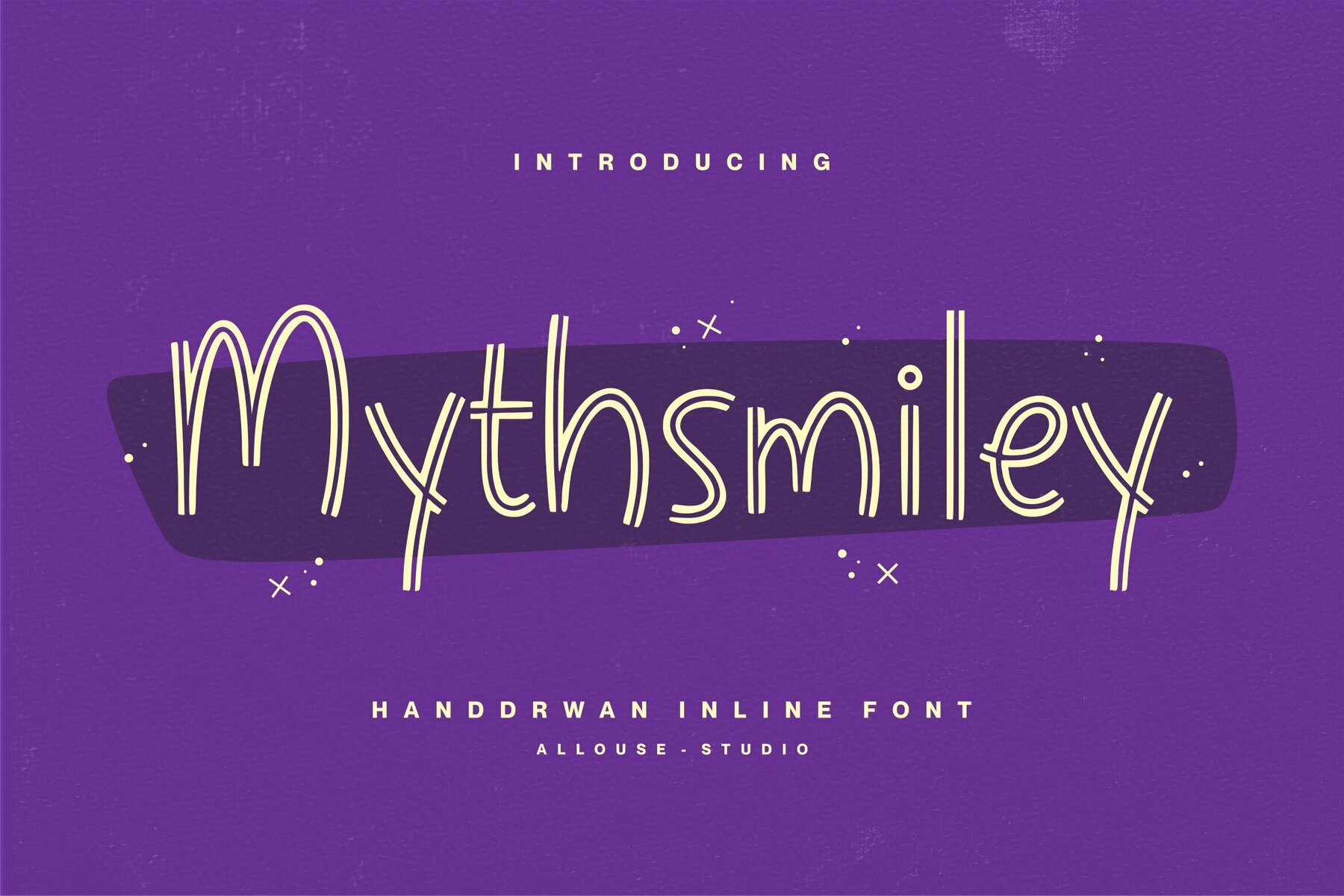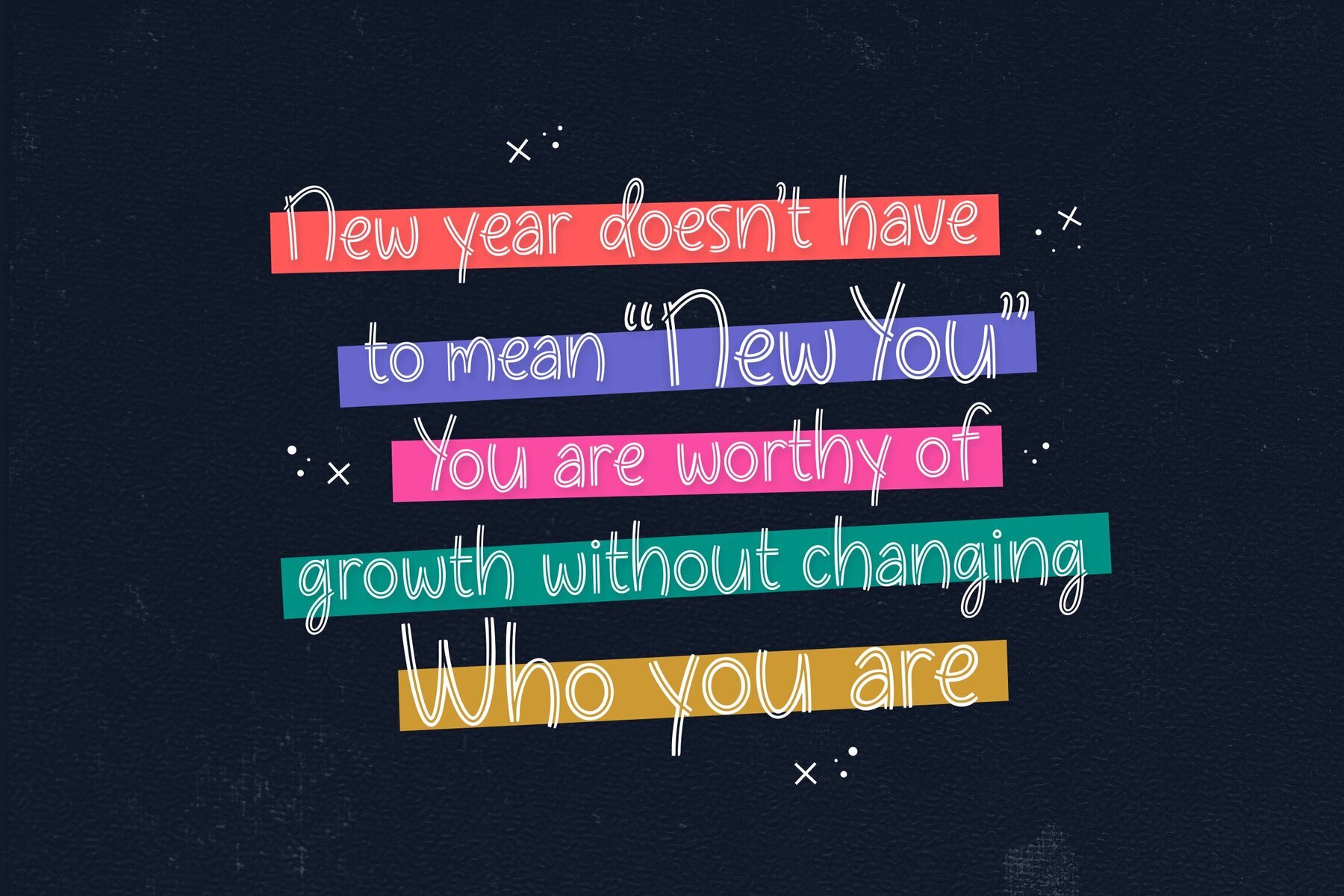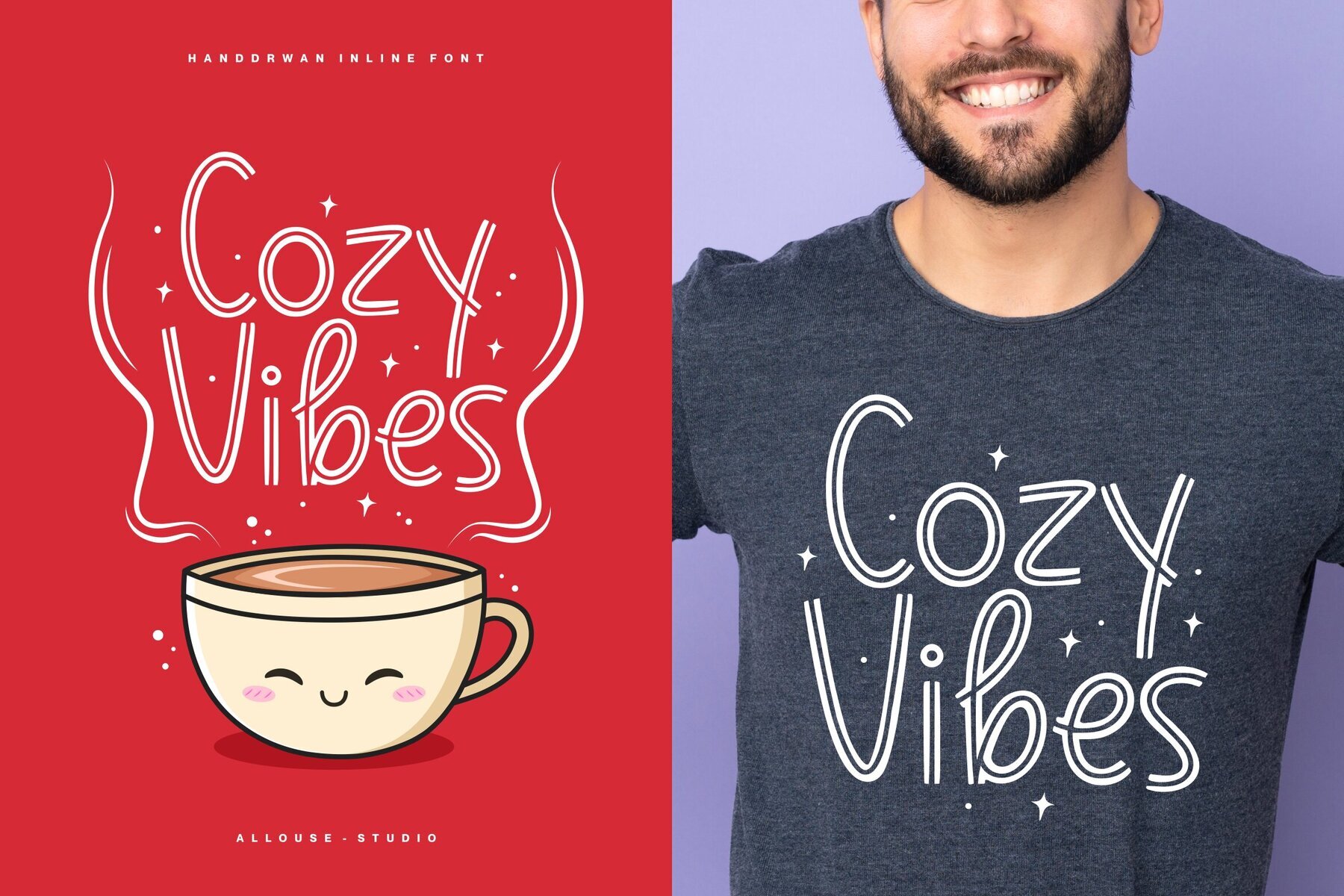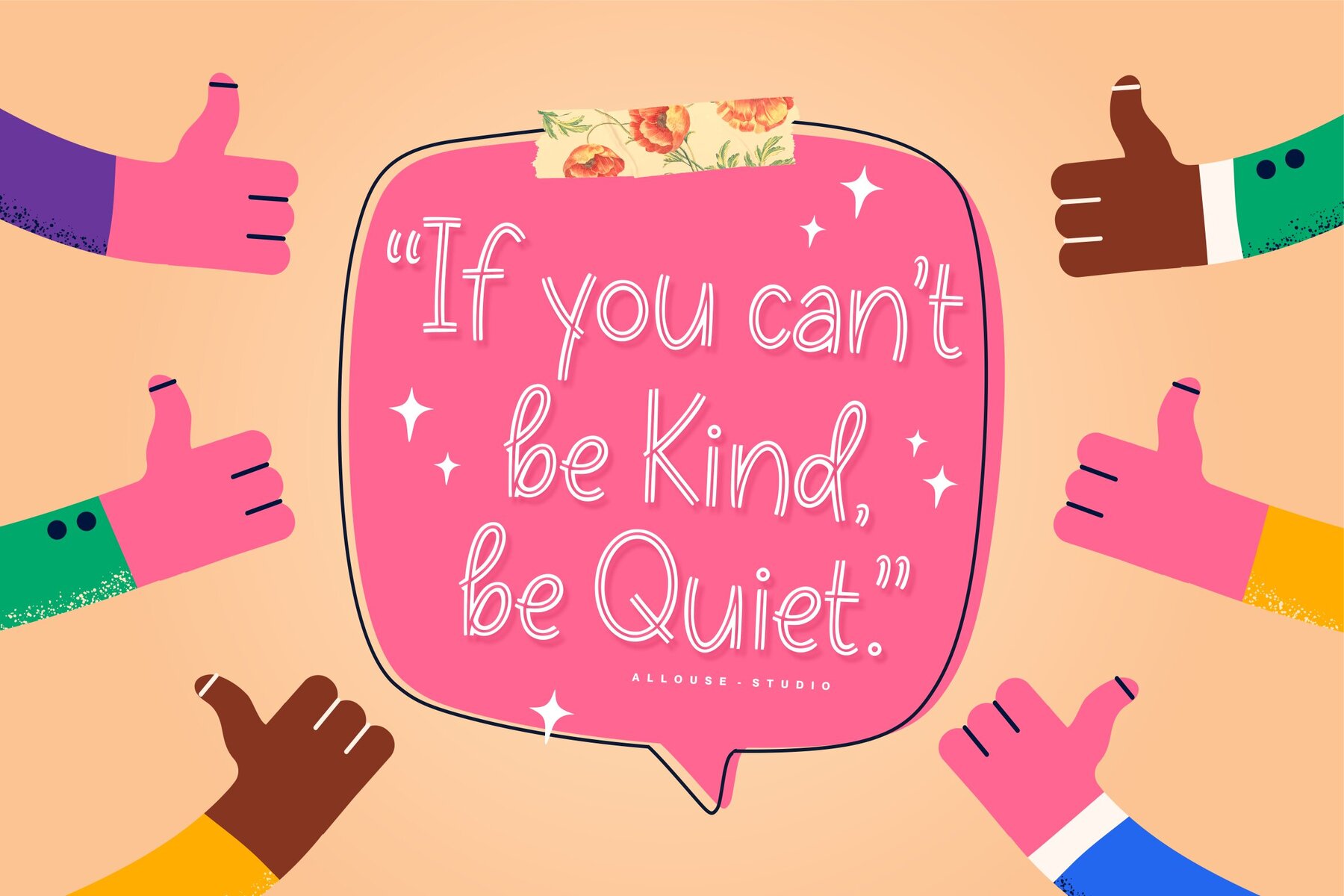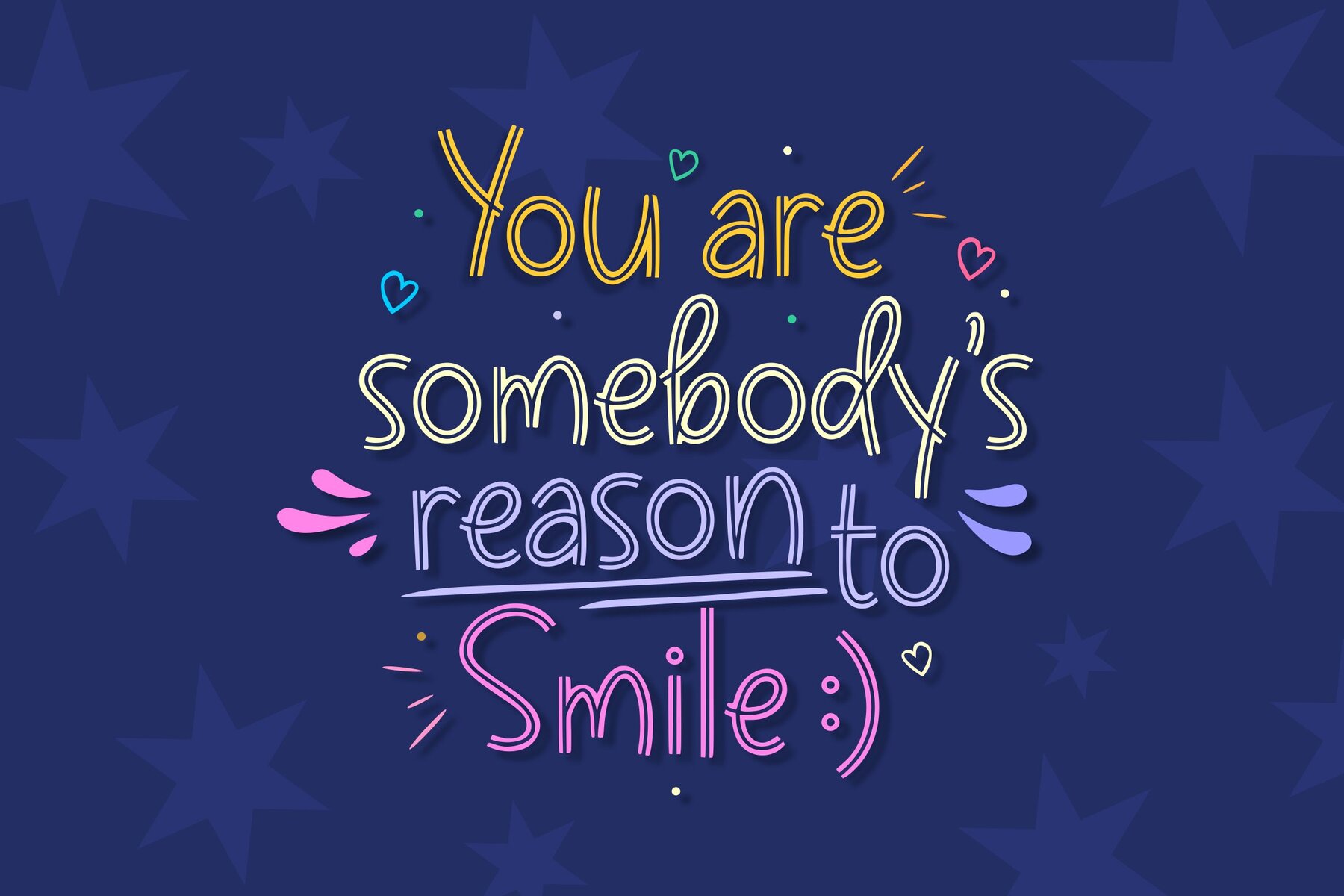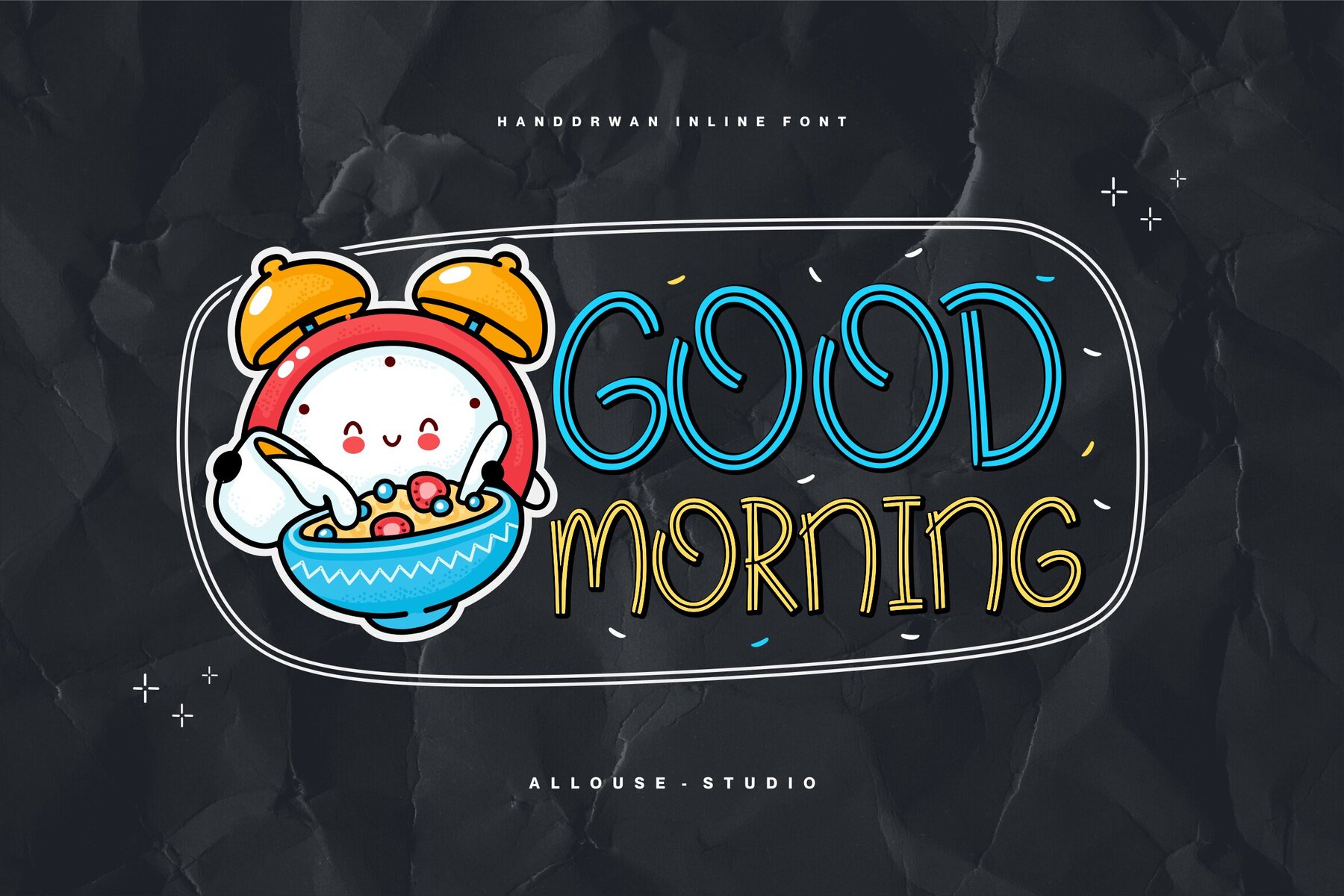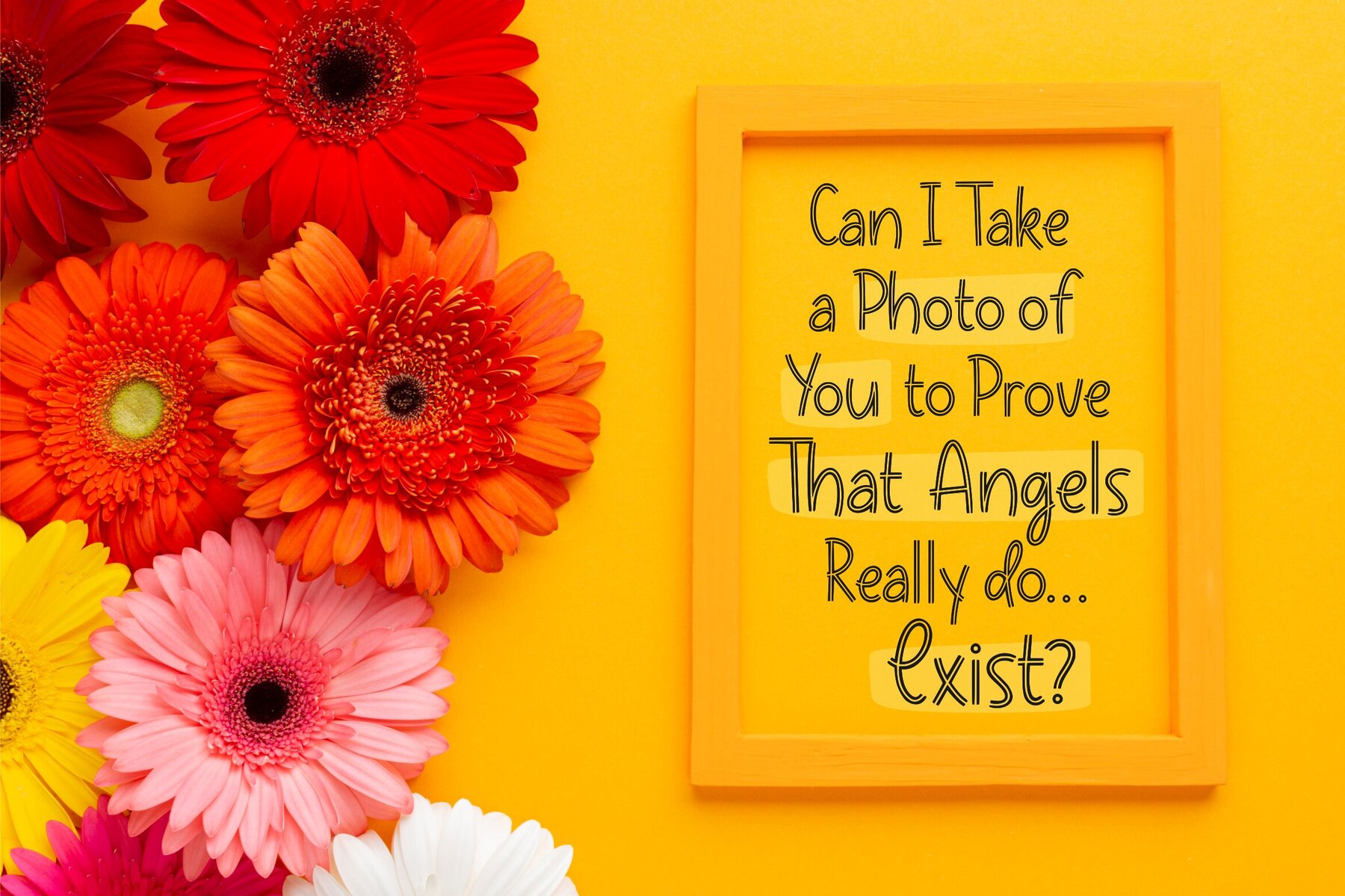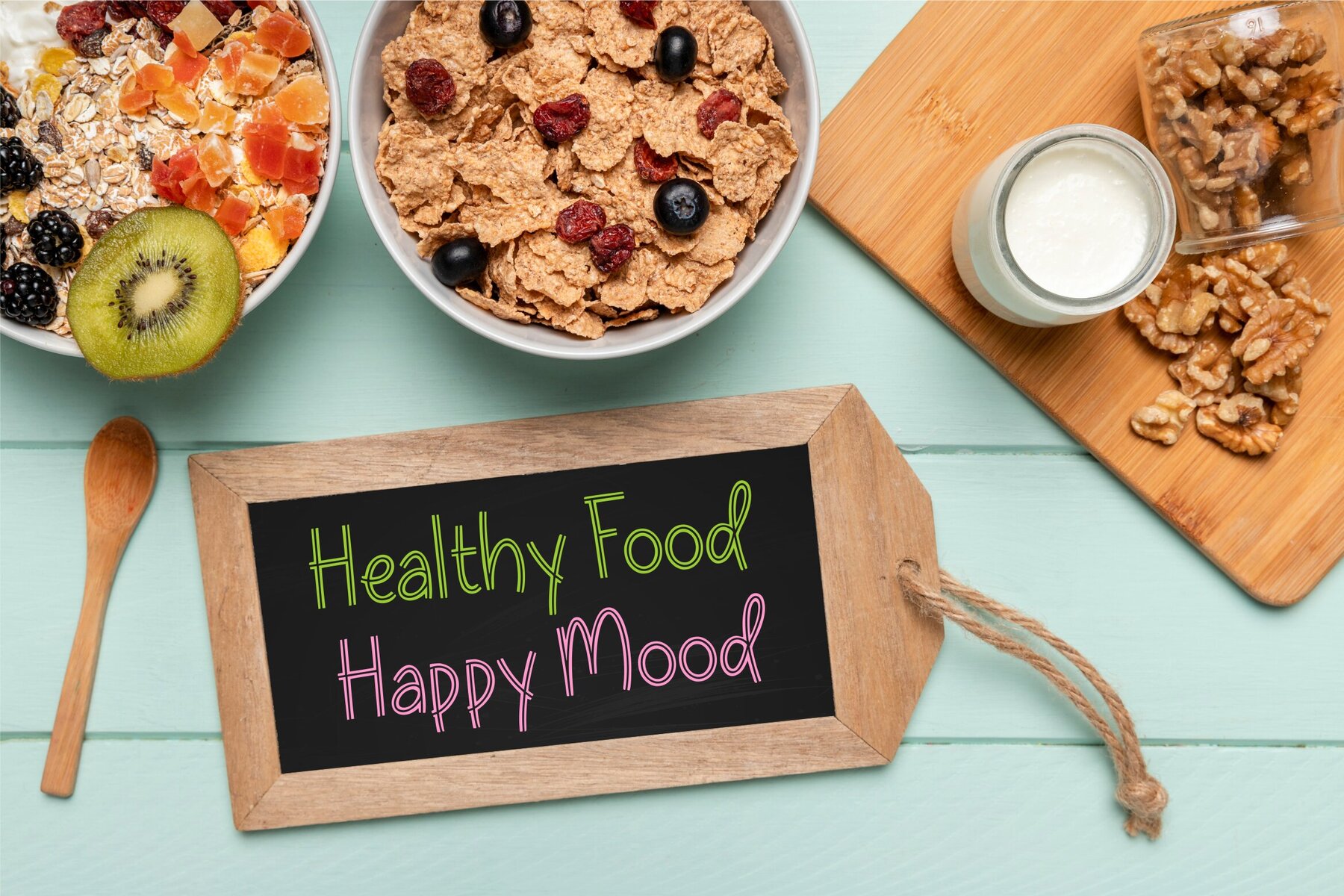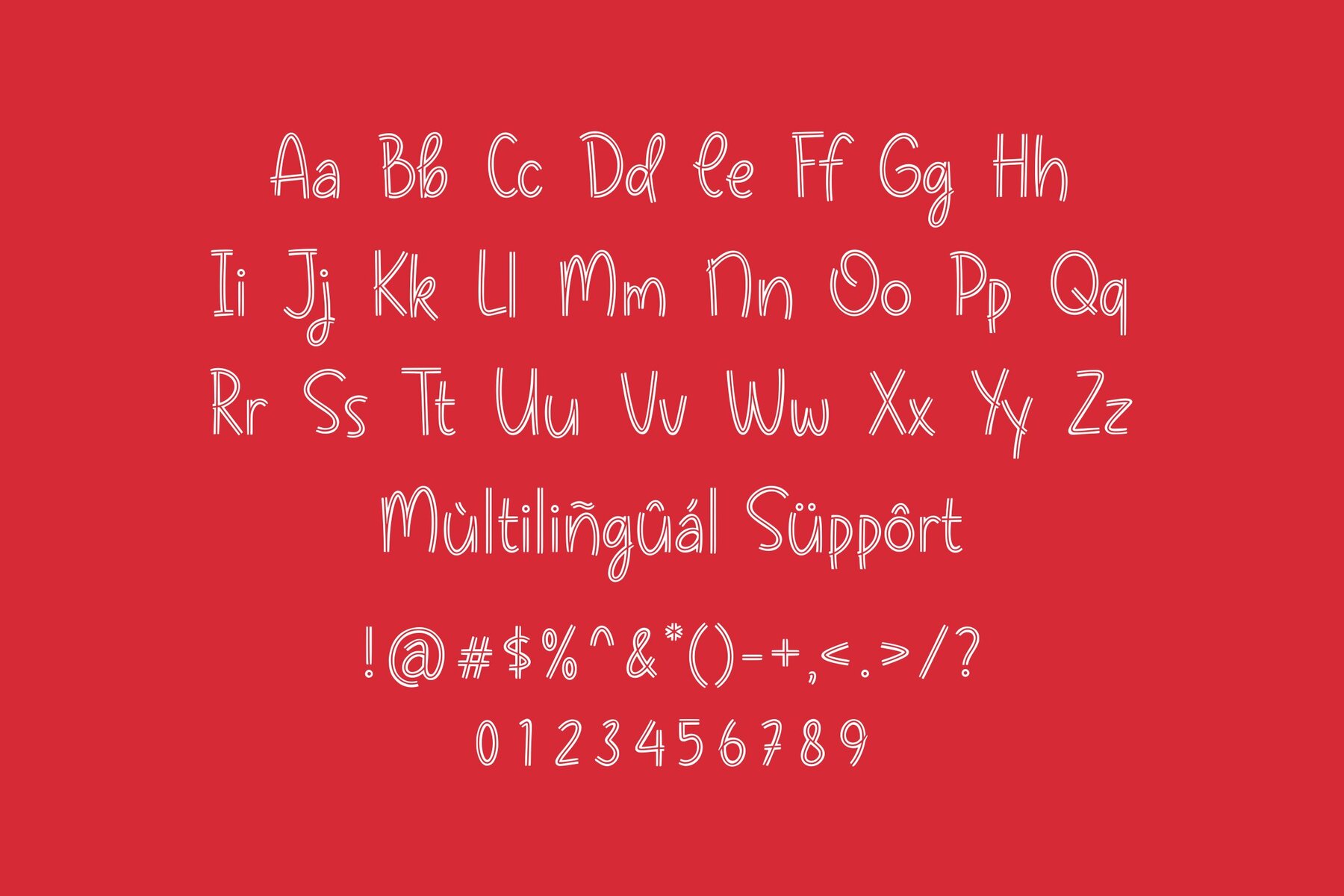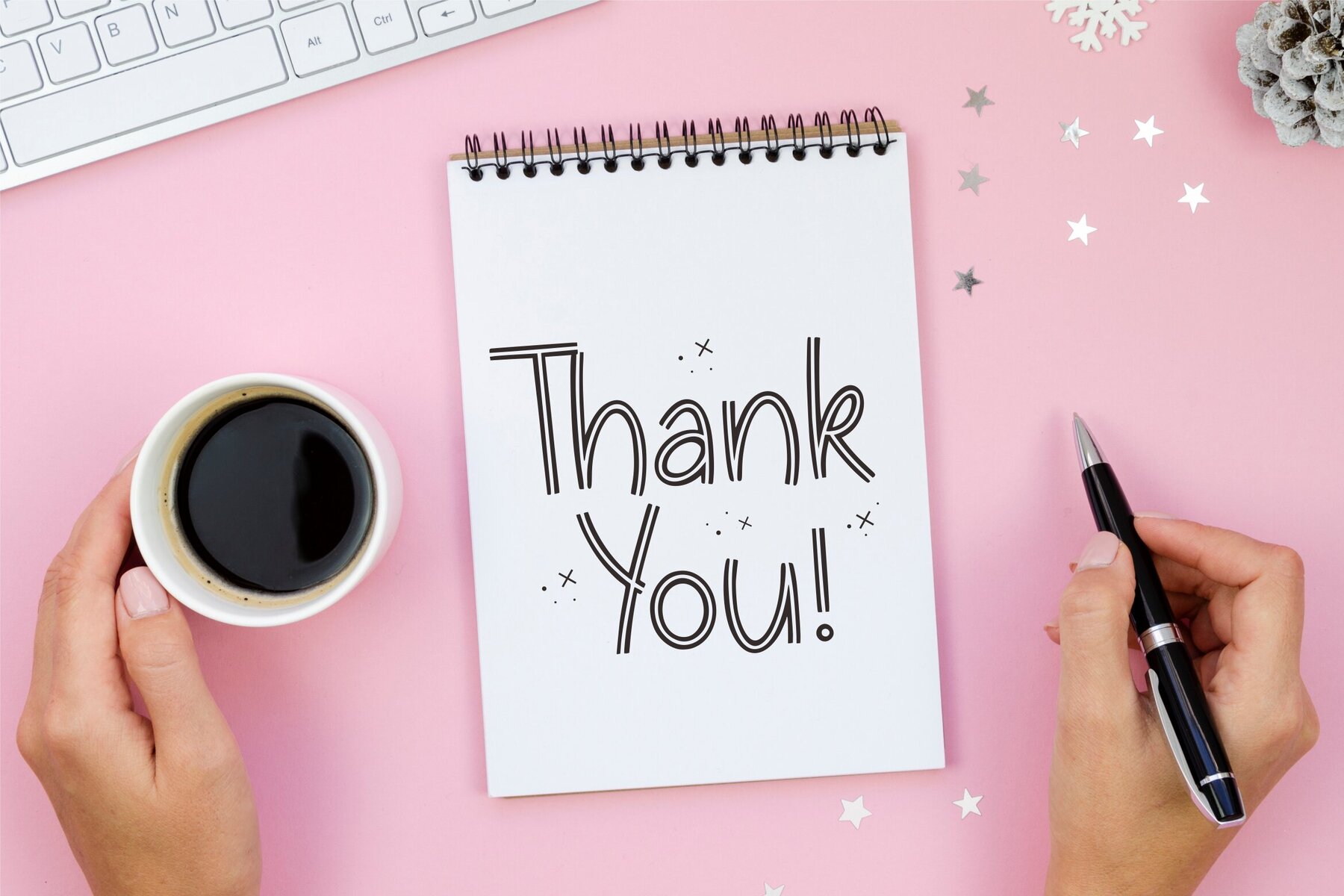
mythsmile Font
Mythsmiley
Mythsmile is a playful yet sophisticated typeface designed to add a whimsical touch to a variety of projects. Its unique style makes it an ideal choice for branding, product packaging, and magazine layouts, where distinctive typography captures attention. Whether making a bold statement on social media or adding a personal flair to wedding invitations, Mythsmile enhances every creative expression.Mythsmile: A Charming Display Typeface for Every Occasion